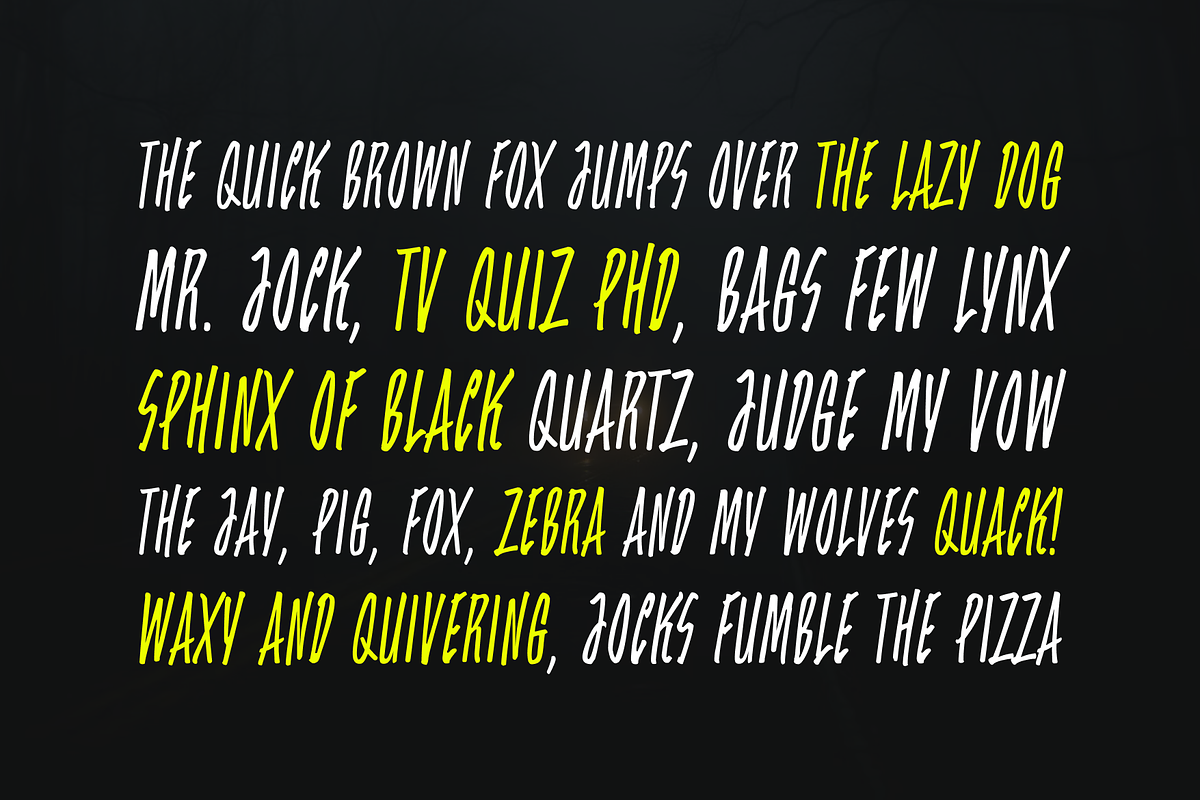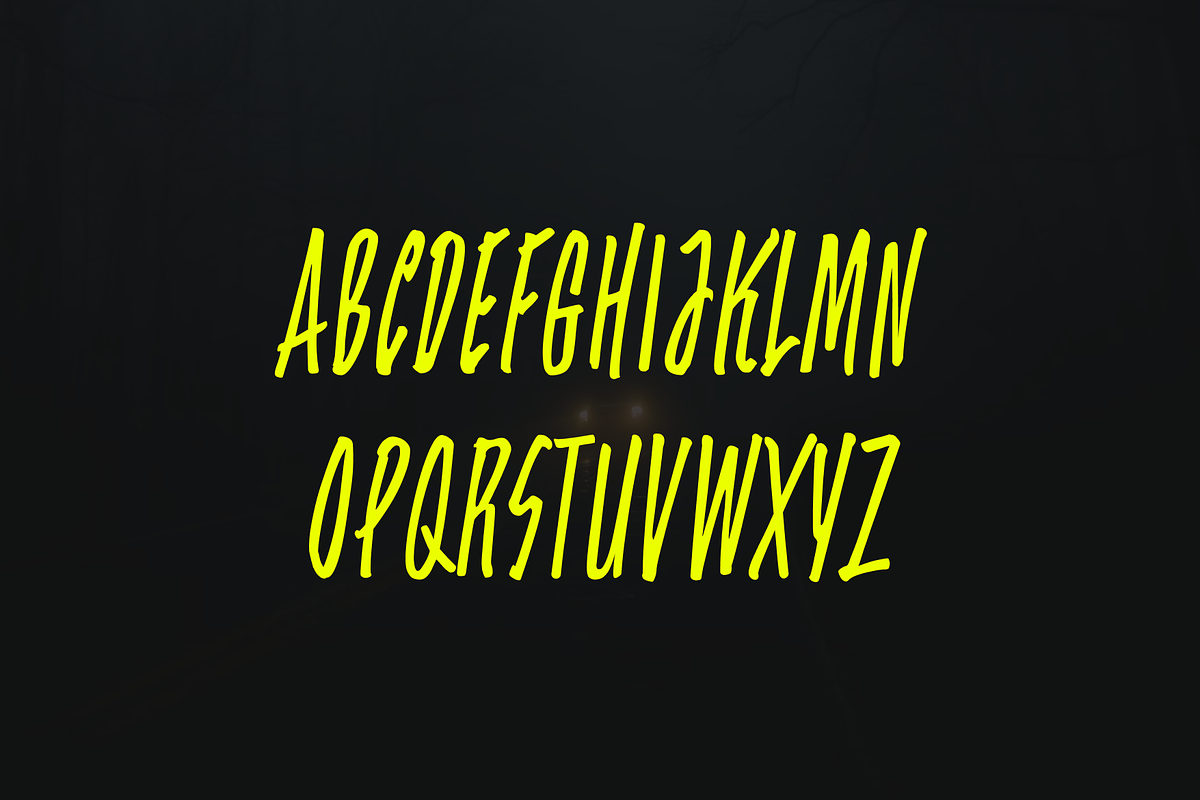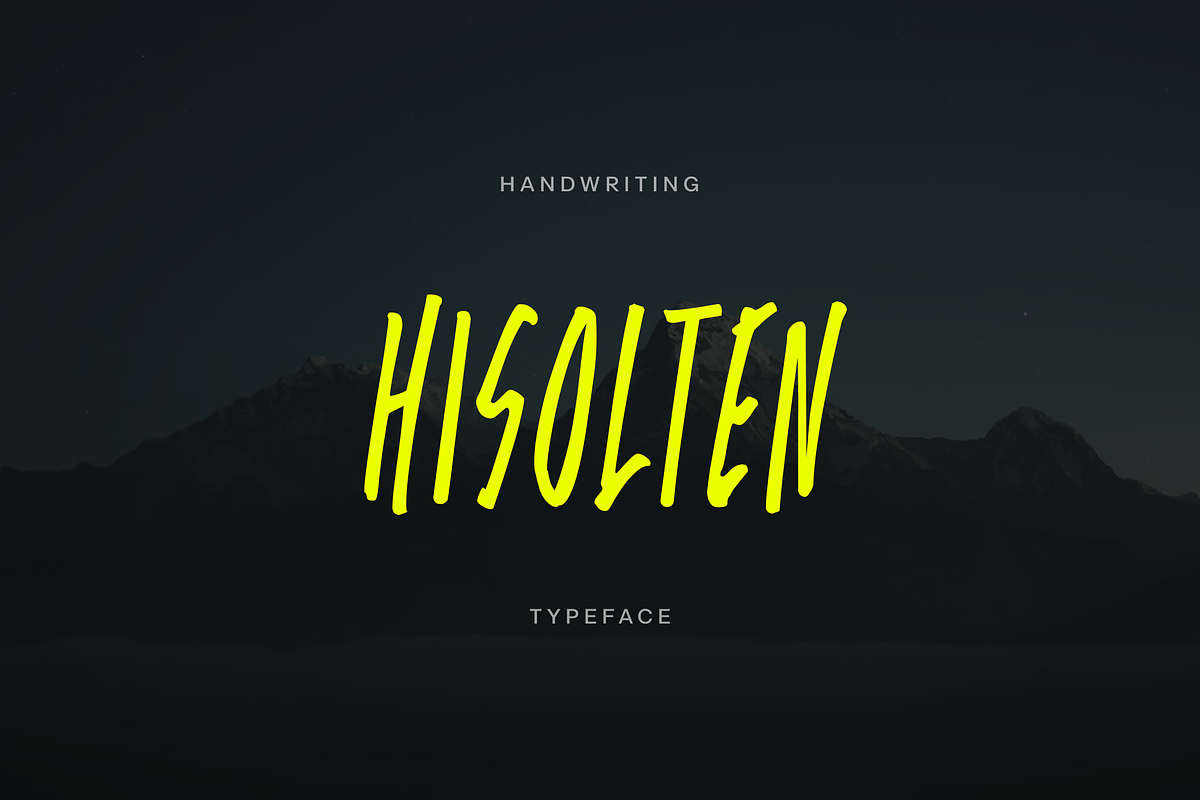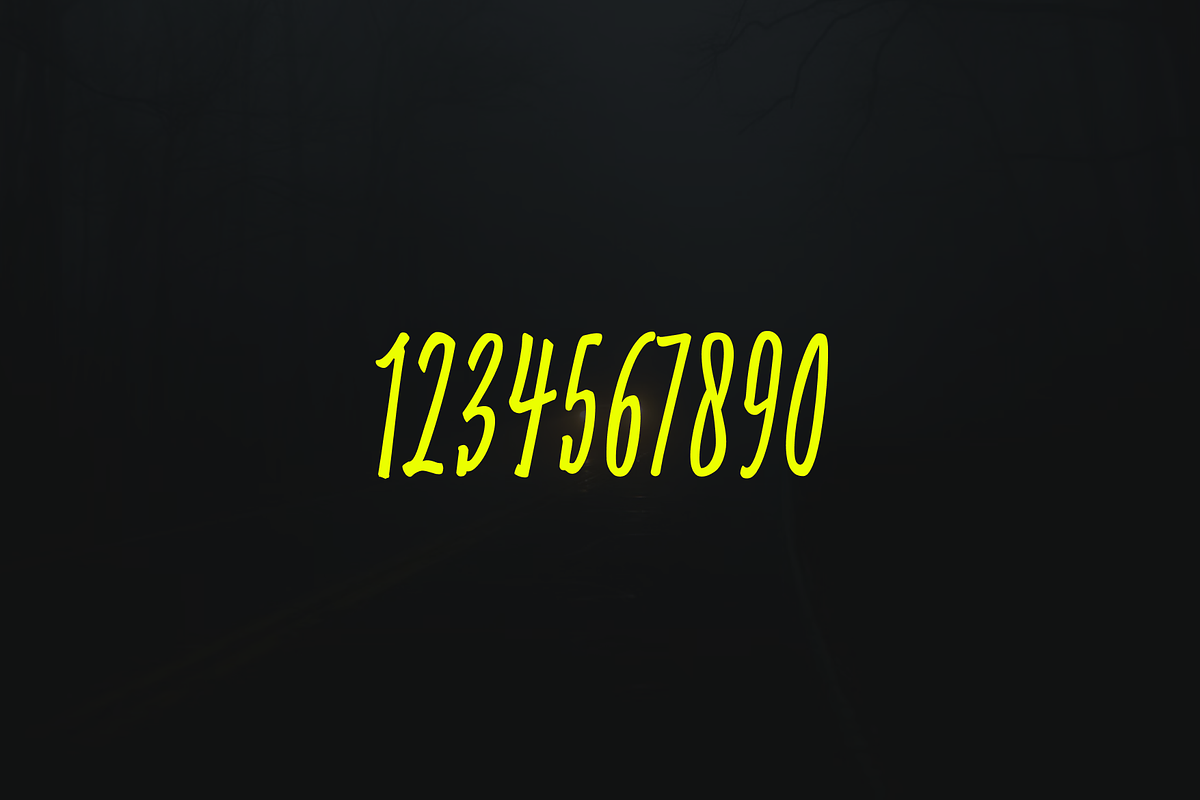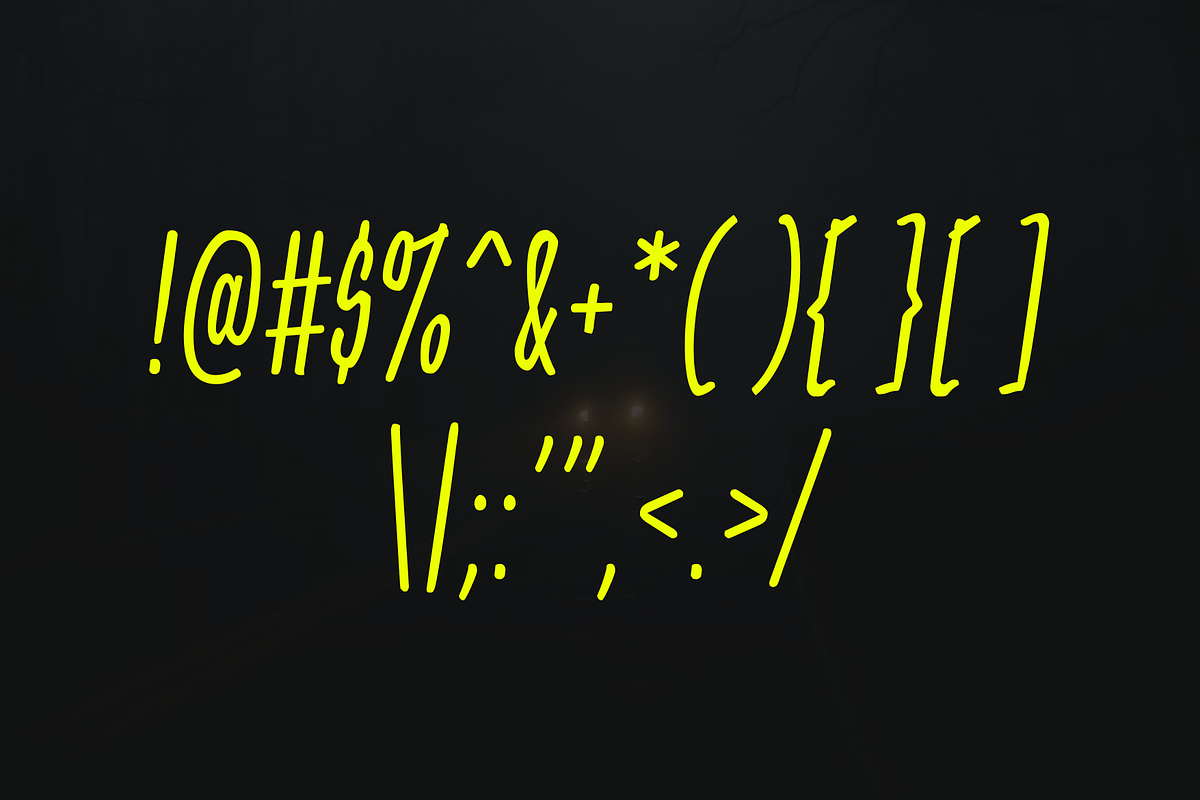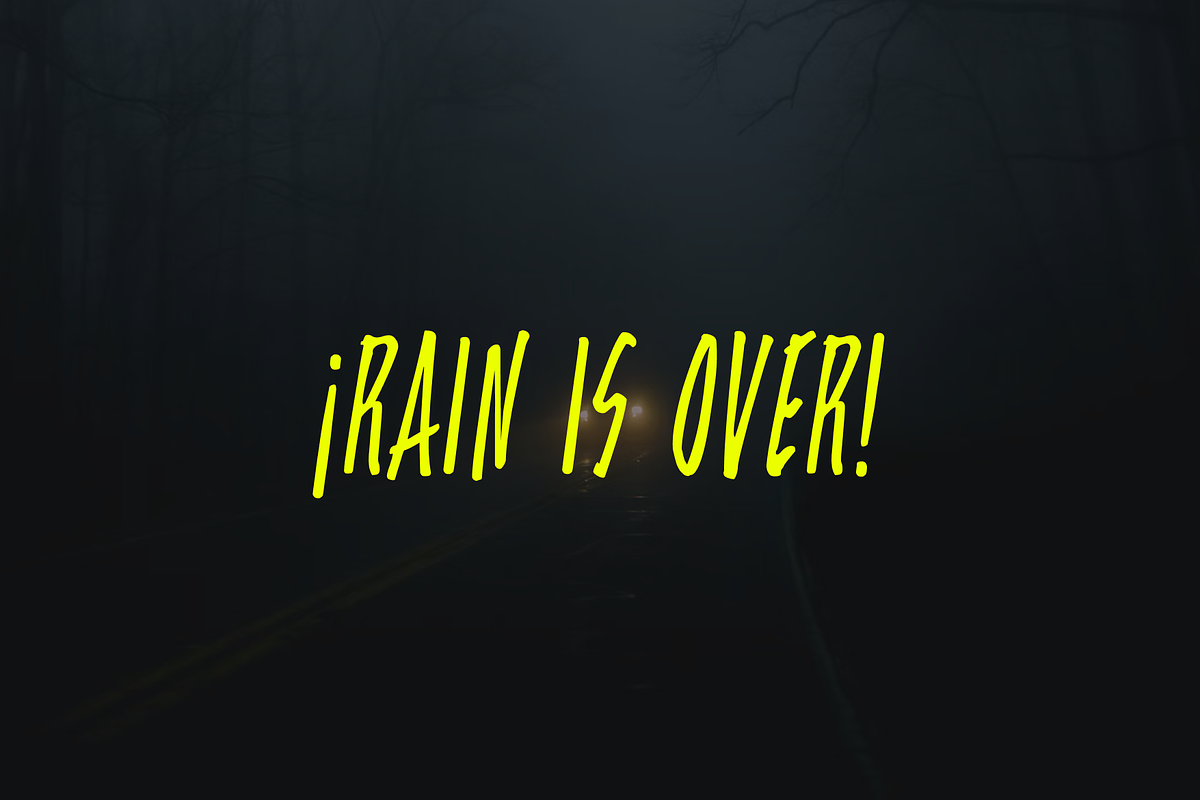
Hisolten - Uppercase Handwriting
Hisolten Typeface: A Playful Fusion of Natural and Bold
Hisolten is a captivating typeface that fuses the organic charm, natural handwriting with the bold flair of uppercase design. The condensed structure adds efficiency, making it versatile for various applications. Each character exudes a wild, untamed spirit, injecting a spontaneous and lively personality into every project.
Hisolten Ideal for comic strips, posters, or branding, Hisolten strikes the perfect balance between legibility and a playful, whimsical aesthetic, ensuring your designs stand out with a touch of creative charm.